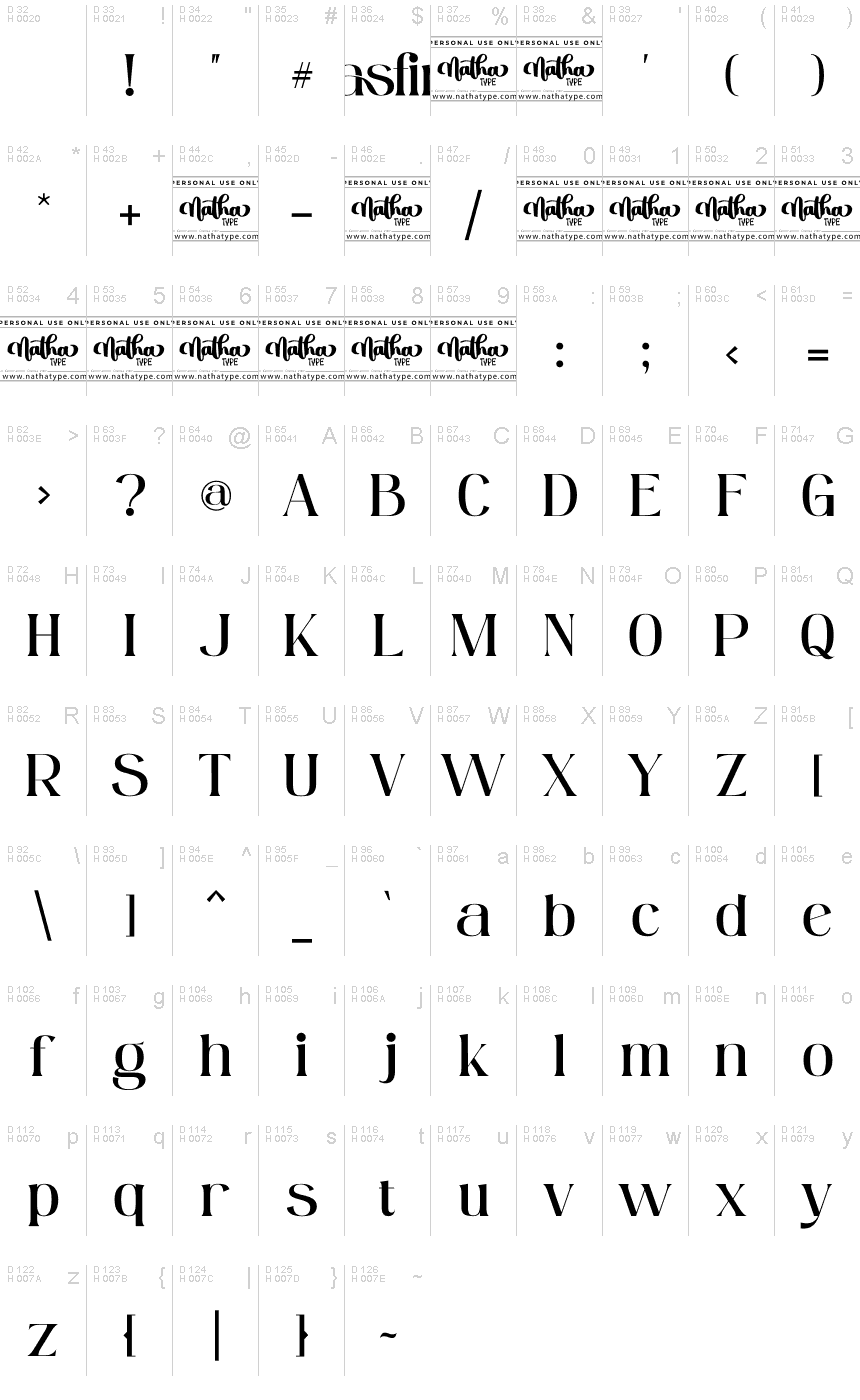
Rasfire Regular Personal Use
Rasfire, designed by Din Studio, is a semi-light serif font that brings a delightful experience to your design projects.
Its simple and modern vibes make it equally suitable for both headers and smaller text. With 8 different styles available, from thin to extra bold, this versatile serif font offers endless possibilities for your creativity. Whether you're designing posters, logos, book covers, or social media campaigns, Rasfire is the perfect choice. Its fascinating features will help you maximize your design impact and create stunning visuals.